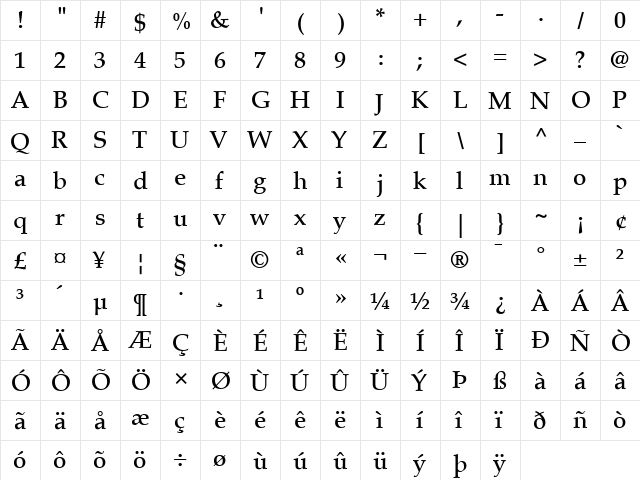
Palatino-Medium Medium
Design Context for Palatino-Medium Typeface
Palatino-Medium takes a measured approach to typography — its balanced proportions and neutral character make it a reliable workhorse for both digital and print work.